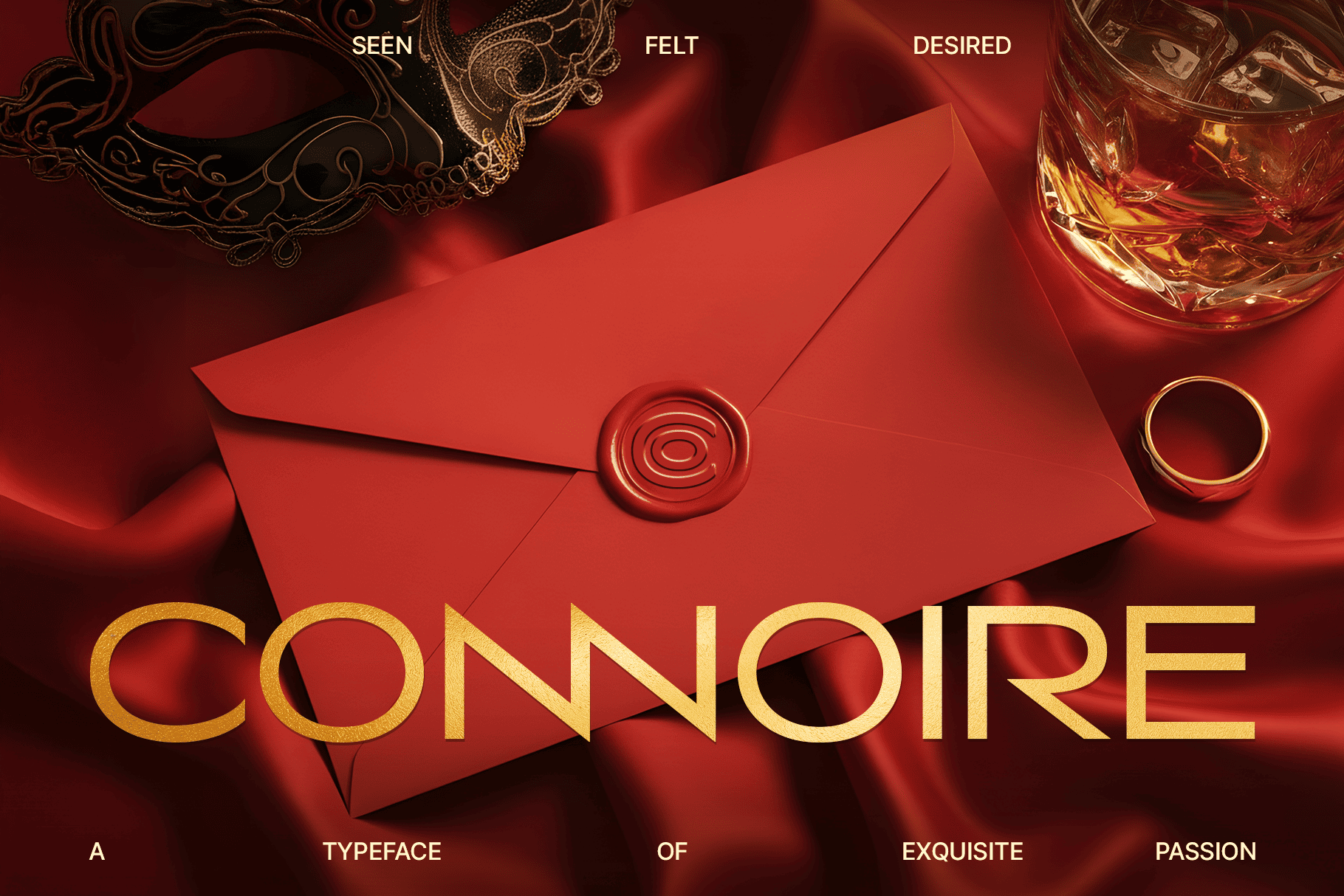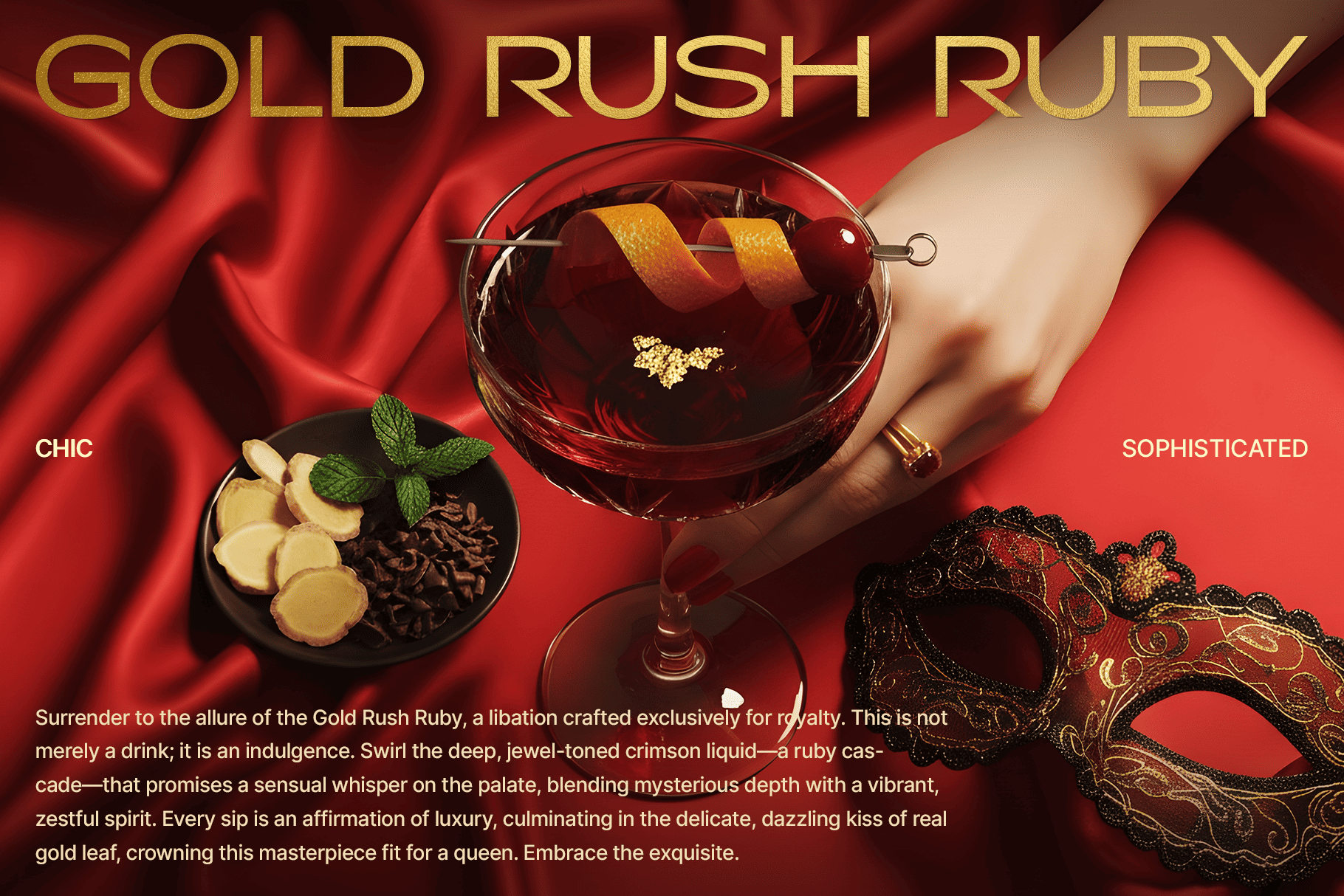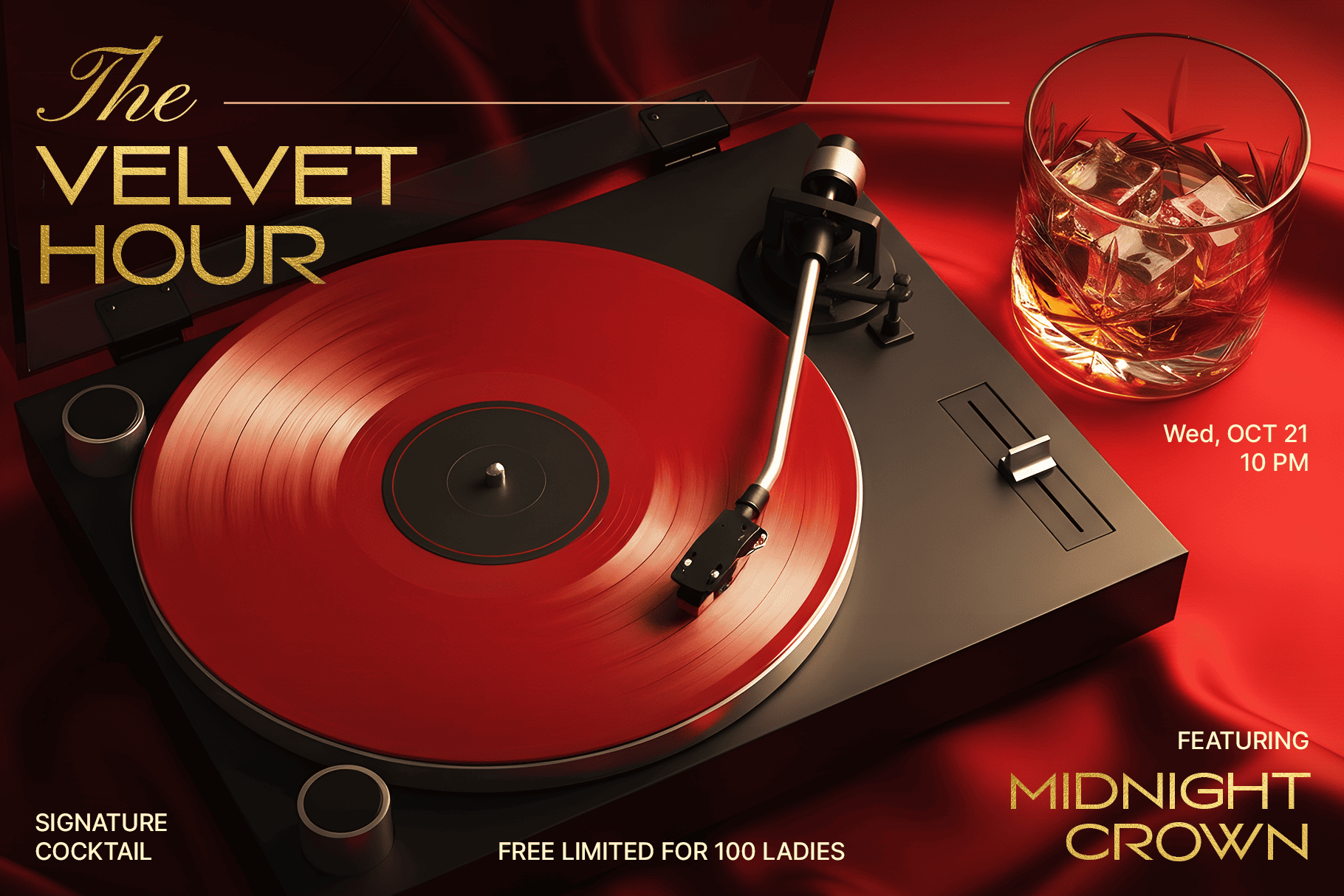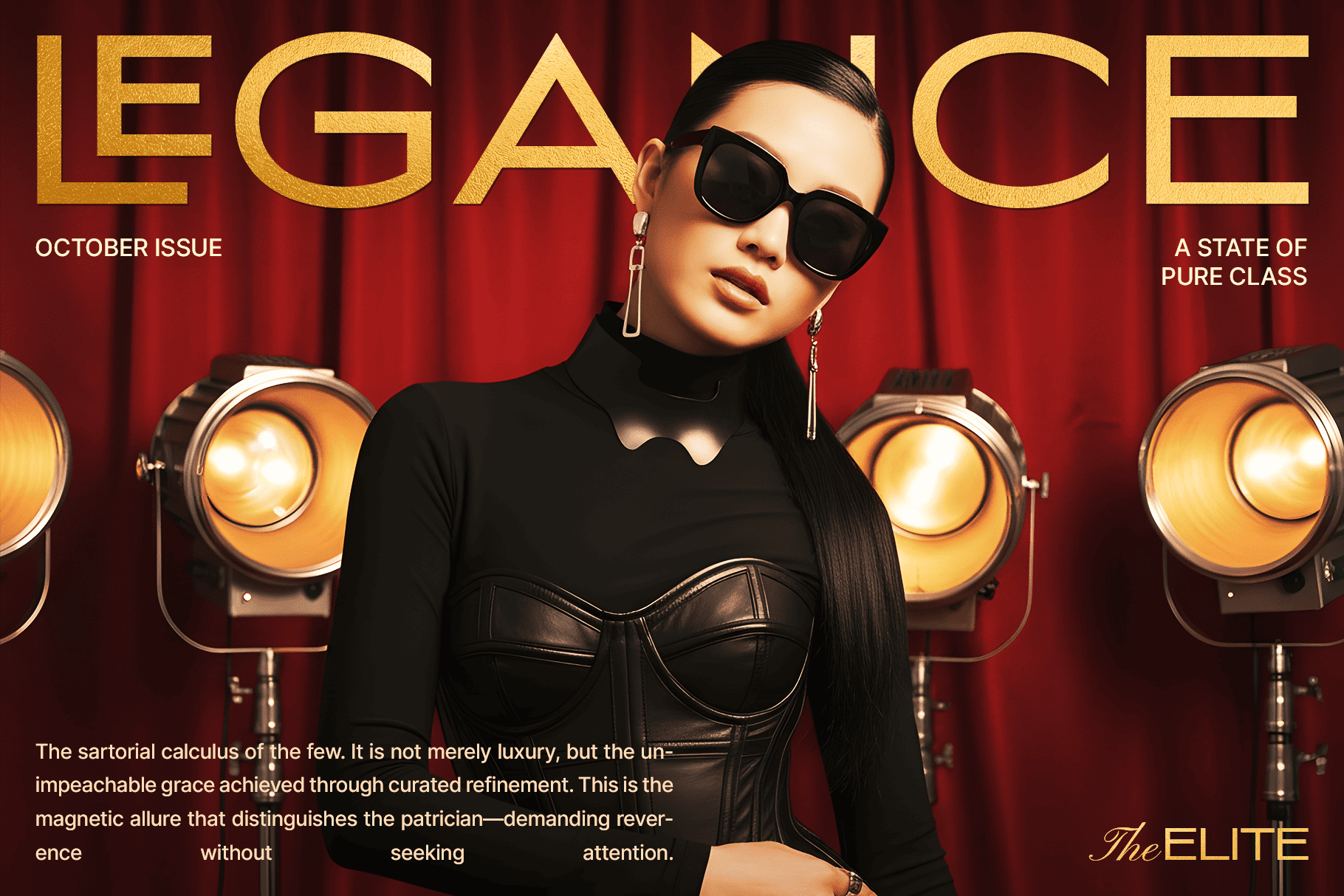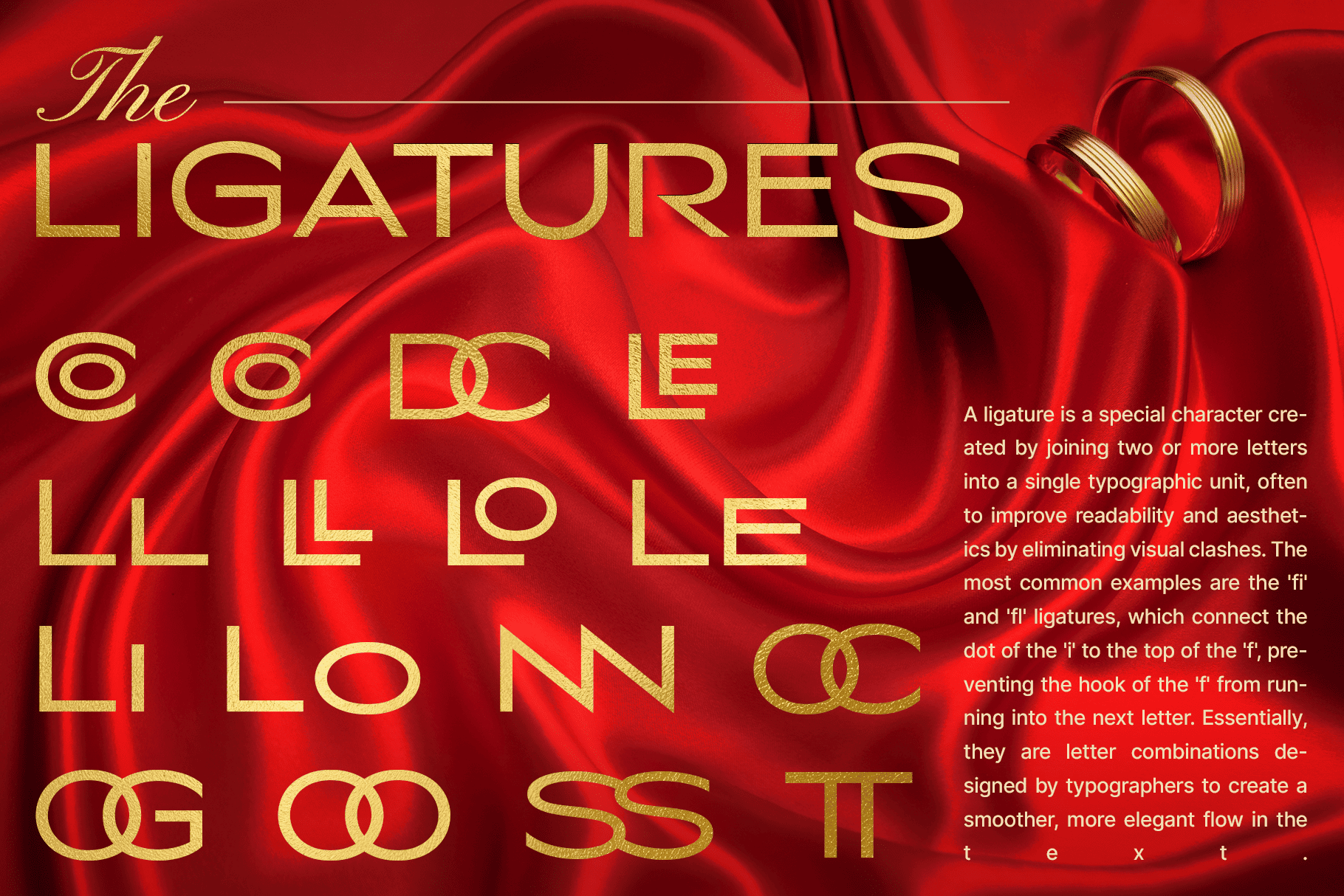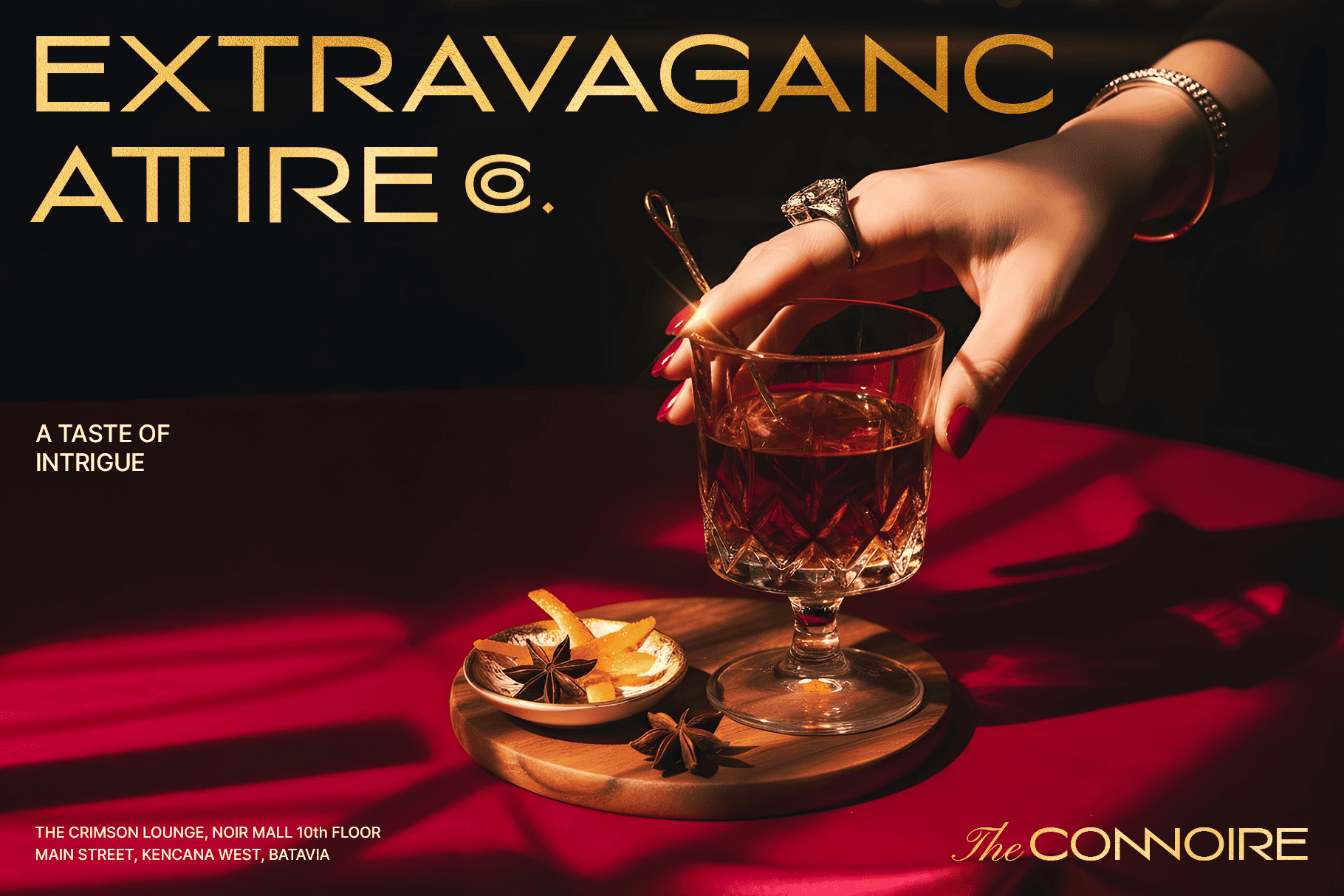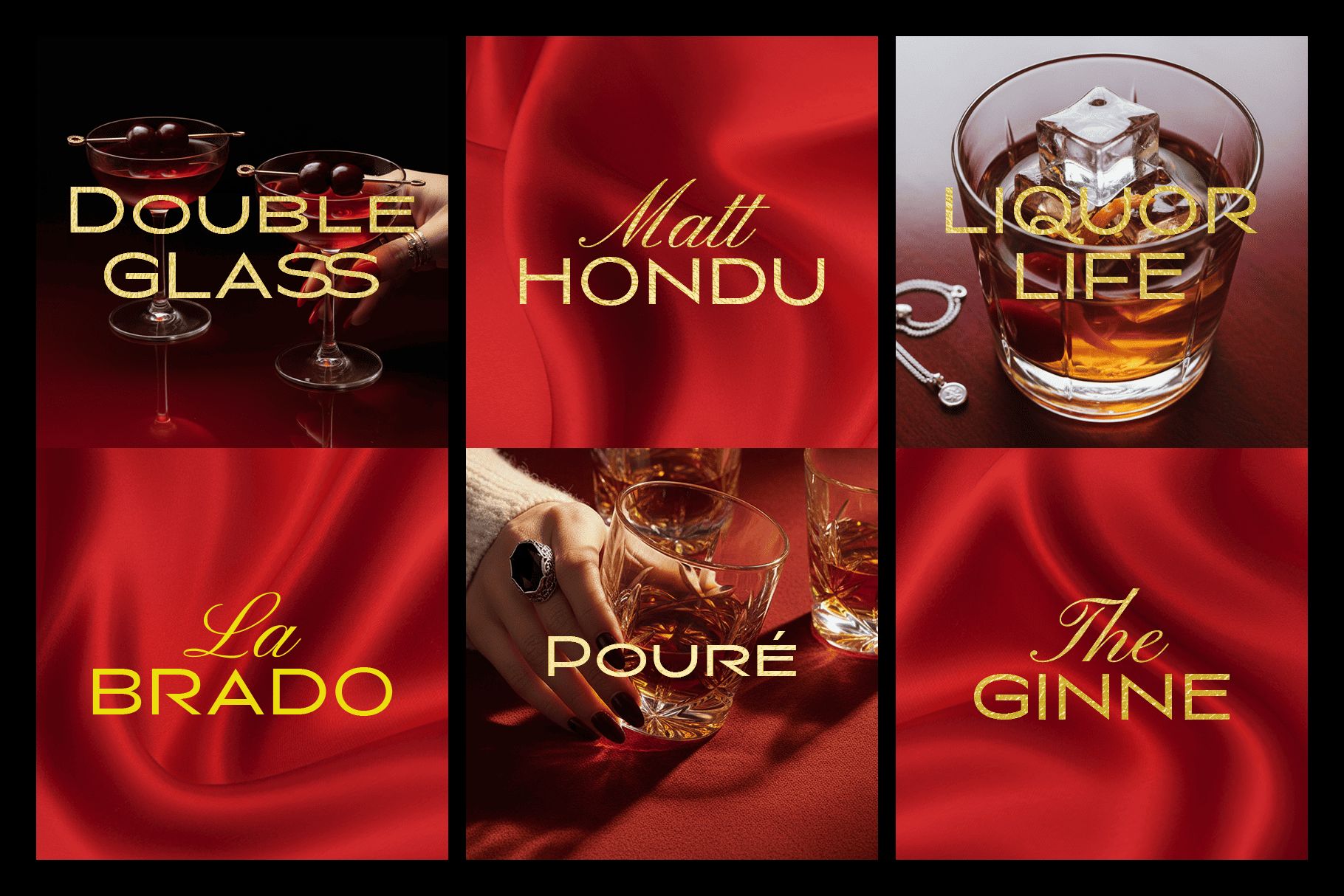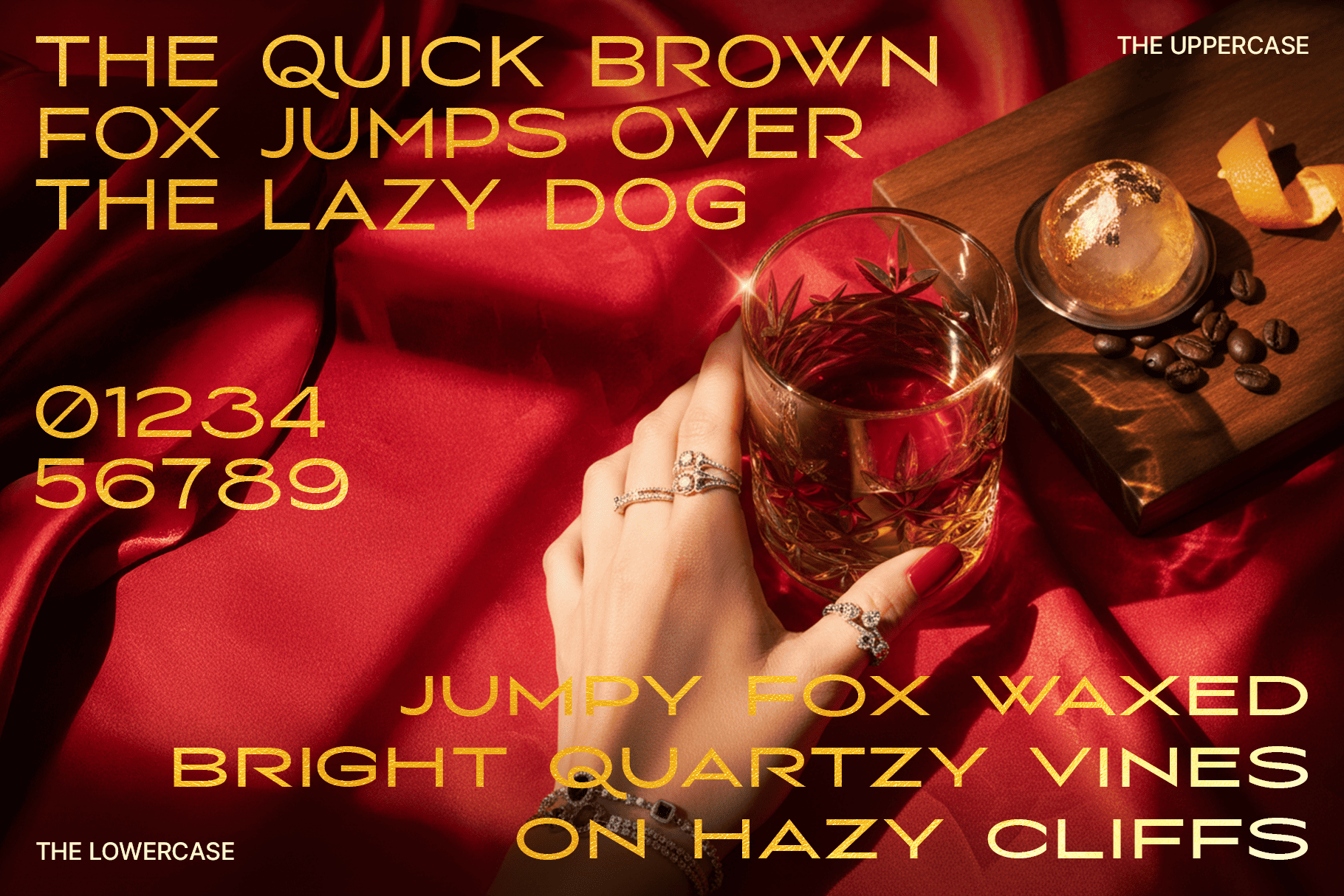
Connoire – Luxury Formal Fonts
Some things are meant to be whispered.
Introducing Connoire, the typeface that doesn’t just display text—it embodies a lifestyle. Designed for those who appreciate the intoxicating blend of luxury, passion, and high-class mystique, Connoire is the visual equivalent of a secluded lounge, the glint of whiskey in low light, and the silk-smooth promise of a late-night encounter.
This is more than a font; it’s a statement. Connoire captures a deeply sensual and expensive aesthetic, with a contemporary-classic design that is both bold and impossibly refined. Its clean lines and evocative curves are meticulously crafted to convey a feeling of effortless elegance, making your brand not just seen, but felt and desired.
Stop settling for typefaces that shout. Choose Connoire, the one that seductively invites. Give your projects the sophisticated soul they deserve and instantly elevate your brand above the ordinary.
Optimal Usage & Design Applications
Connoire is a versatile high-impact font designed to inject an immediate sense of premium quality and sensual luxury into your most critical projects. Its unique character makes it perfectly suited for:
- Luxury Product Branding: Ideal for packaging, advertising, and identity design for expensive goods like high-end jewelry, artisanal spirits (whiskey, cognac), exclusive perfumes, and bespoke fashion houses.
- Hospitality & Nightlife: Perfect for the branding of high-class establishments such as fine dining restaurants, exclusive cocktail bars, lounge venues, and five-star boutique hotels. Use it on menus, signage, and promotional materials to signal opulence.
- Editorial & Publishing: Elevate magazine covers, article titles, and fashion spreads where a sophisticated, seductive tone is essential.
- Digital & Social Media: Create scroll-stopping visuals for campaigns targeting a discerning, wealthy audience—especially for launch campaigns and VIP event invitations.
- Filmmaking & Entertainment: Excellent for film titles, posters, and credits for dramas, thrillers, or anything requiring an atmosphere of intrigue and glamour.
Feel the passion. Own the luxury.